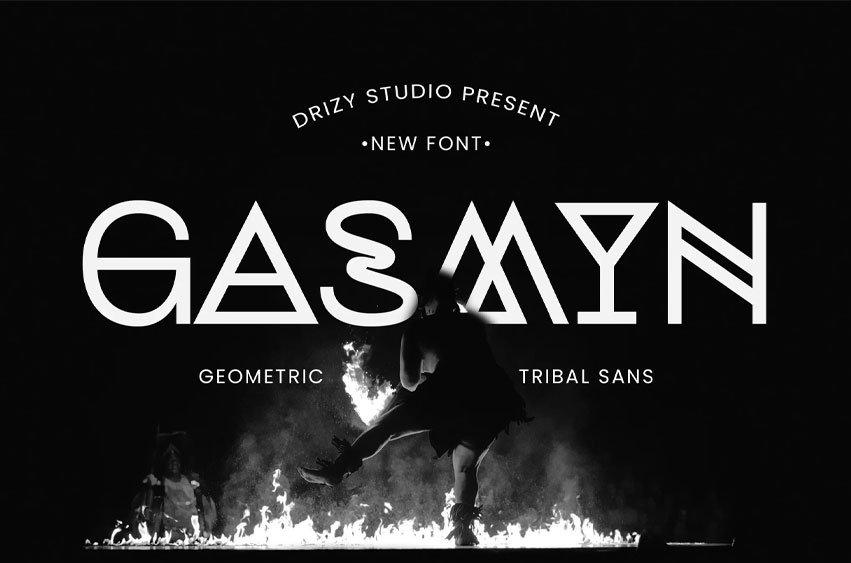
Gasmyn Font
Gasmyn Font is a geometric tribal font from Drizy studio. Offering all the basic styles you will need for a ethnic project’s theme.
Gasmyn Features: All Caps Numeral & Punctuation Multilinguals & Alternates